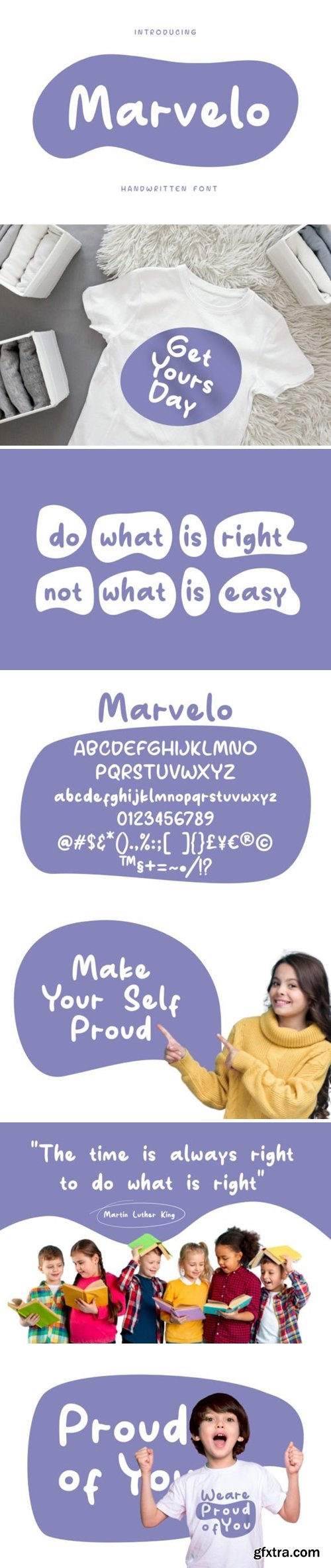
Marvelo Font
Introducing Marvelo is a comic display font that is fun adn clean. Suitable for use on quotes, displays, logos, branding, social media post, advertisements, product packaging, product designs, labels, photography, watermarks, invitations and more.